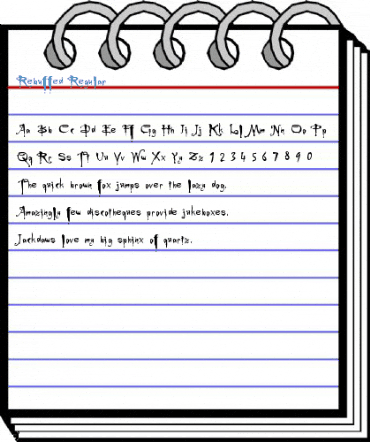
Rebuffed Regular Font
Copyright: mFonts98 - This is a revamped version of the Buffied font, with major alterations to letters B, u , f and y. There can then be no legal problems.